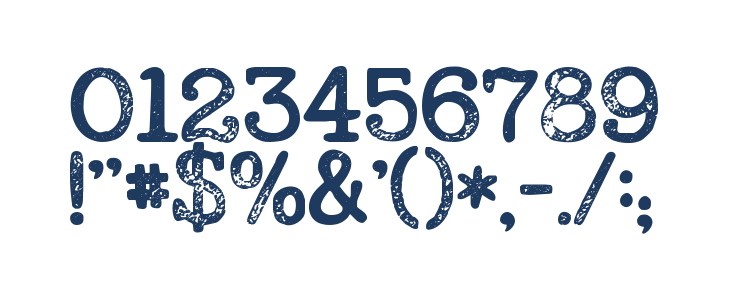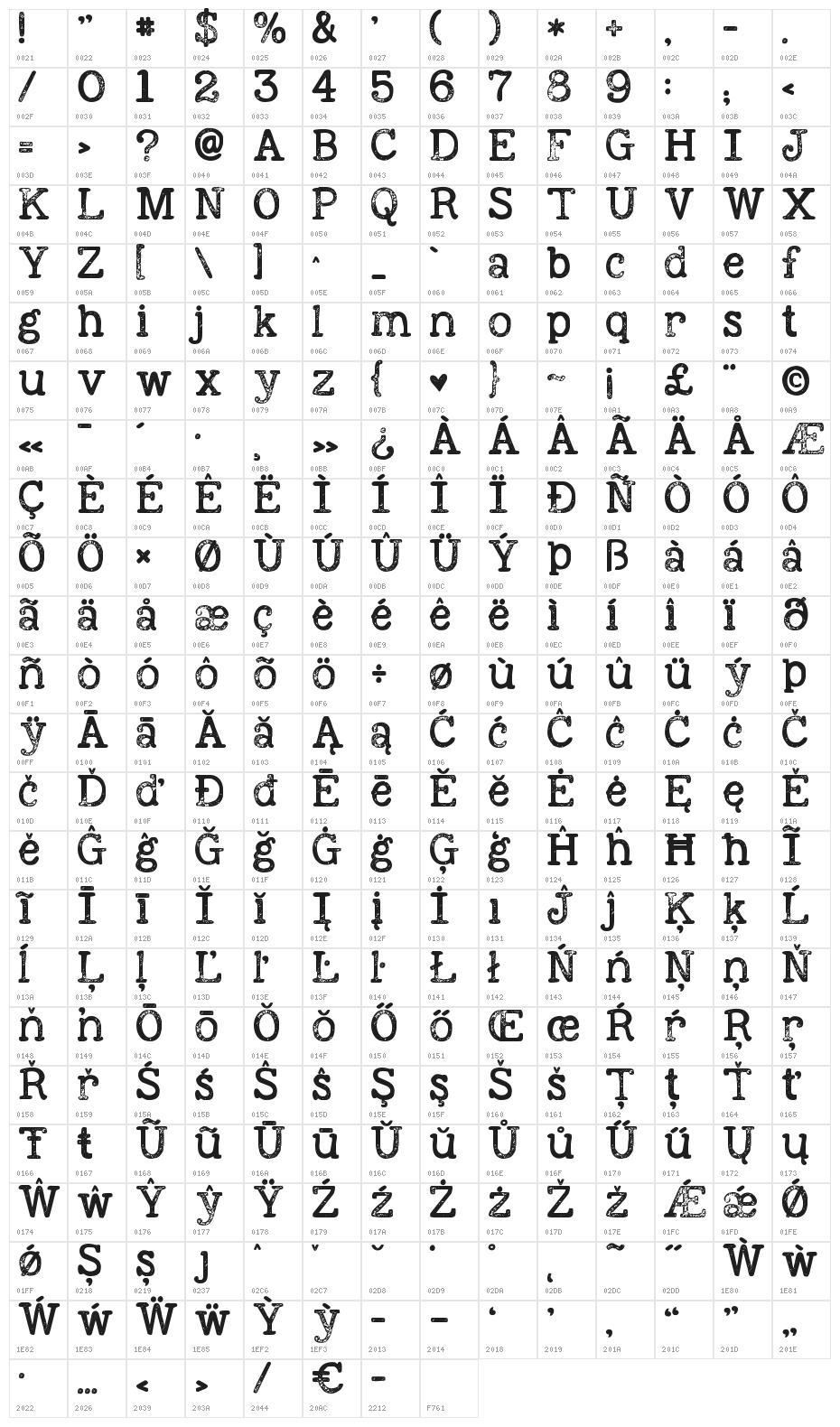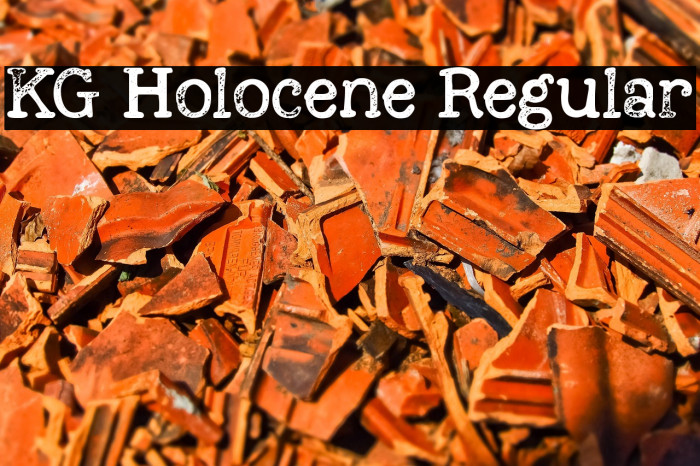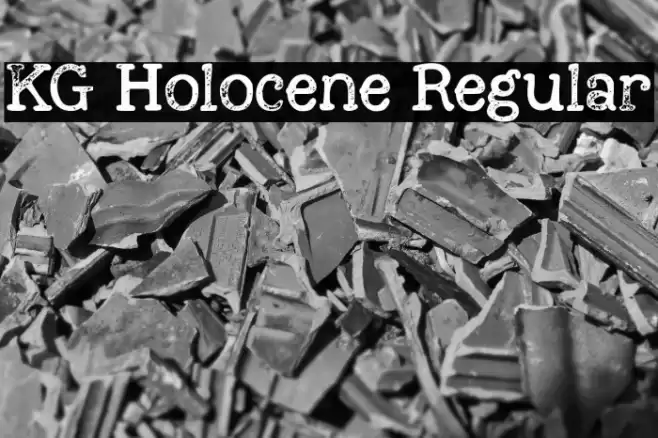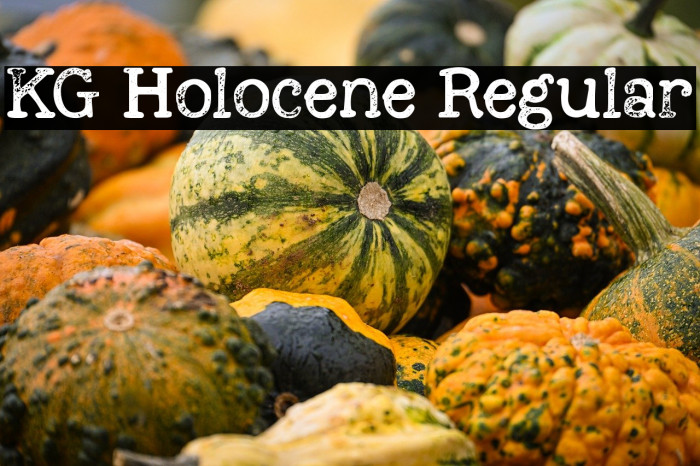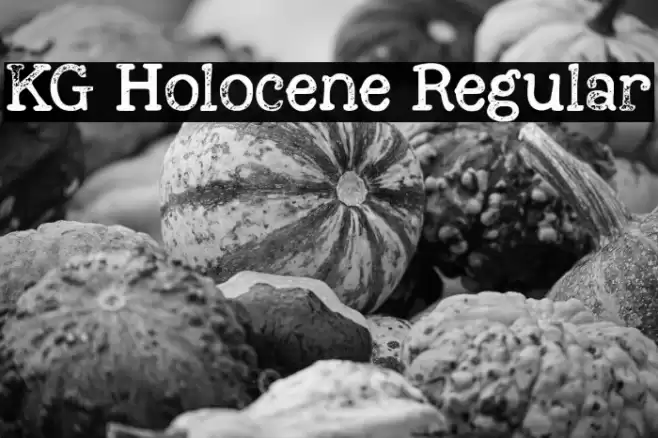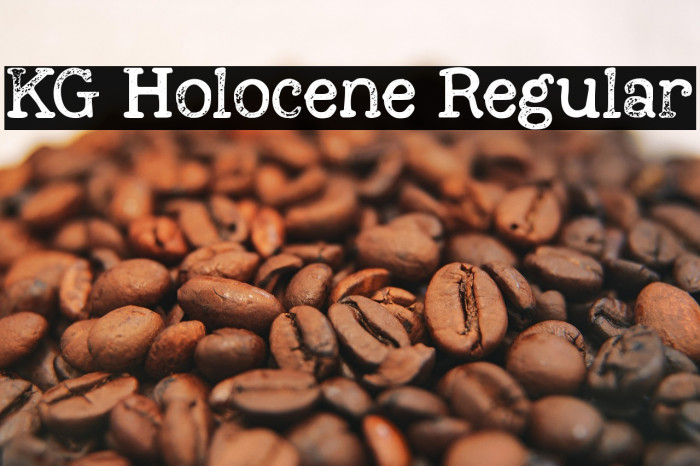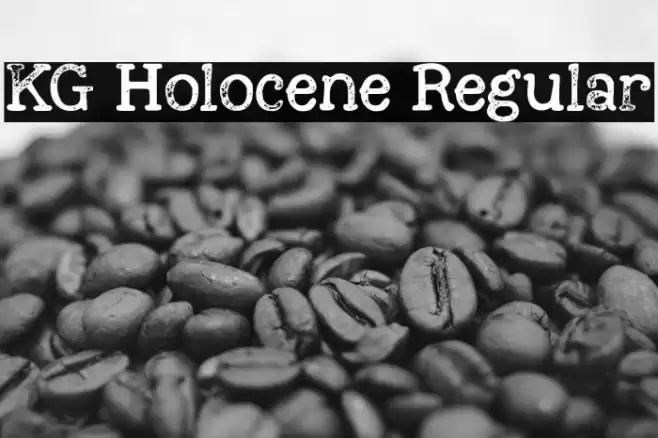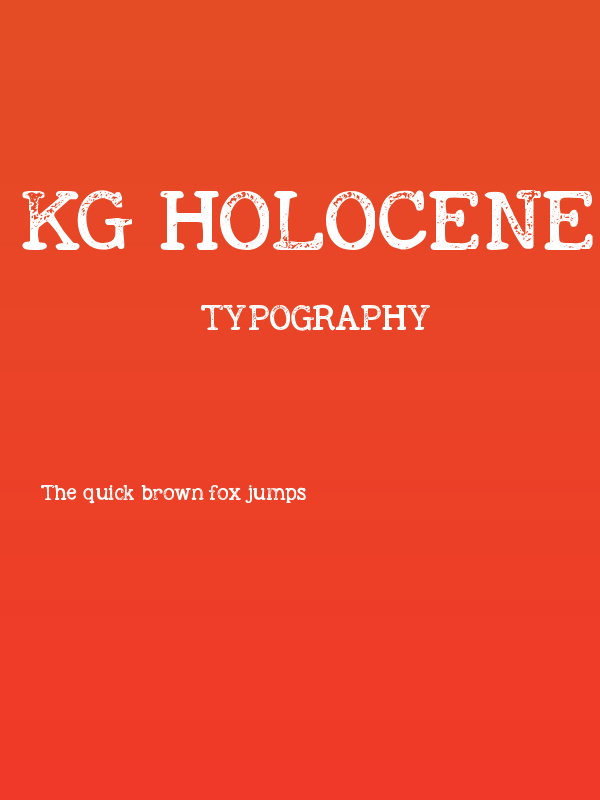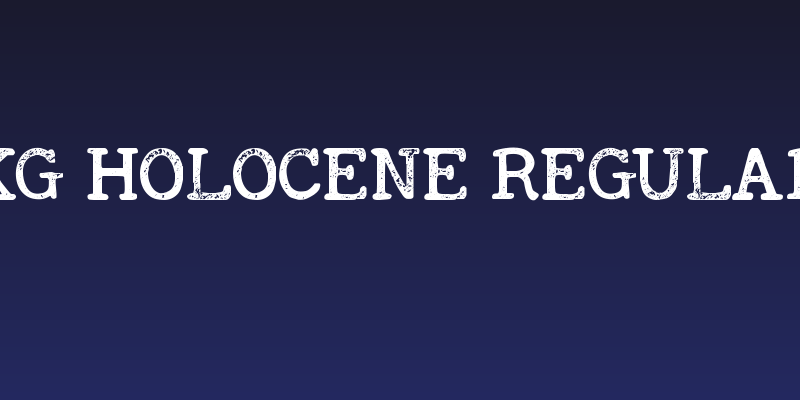
KG Holocene Regular Font
KG Holocene Regular Description
This font features a distressed, textured appearance, giving it a vintage and worn look. The characters are bold and have a slab serif style, with thick strokes and rounded edges. The texture adds a unique, handcrafted feel, making it stand out in any design. The uppercase and lowercase letters maintain a consistent style, with numerals and special characters following suit. This font's distinctive style makes it ideal for projects that require a rustic or retro aesthetic.
| Proposed Projects | Ideal for vintage-themed posters, rustic branding, retro advertisements, and creative packaging designs. |